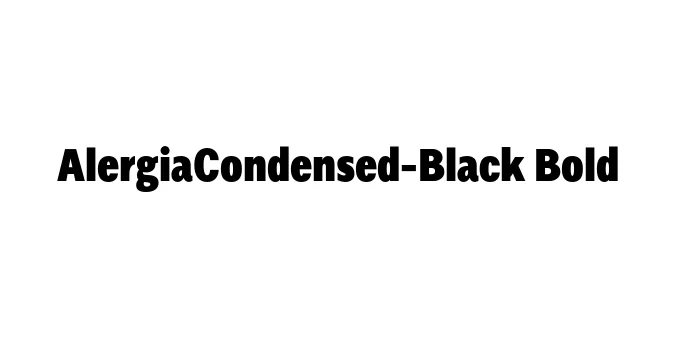
AlergiaCondensed-Black Bold
Designed by Mateusz Machalski
Alergia Condensed Black is a powerful member of the Alergia superfamily, designed by the renowned Polish typographer Mateusz Machalski. This typeface represents a unique hybrid, bridging the gap between rigid geometric construction and the approachable nature of humanist sans-serifs. The Condensed Black variant is specifically engineered for maximum impact, providing a heavy, authoritative presence while maintaining an efficient horizontal footprint, making it a favorite for modern editorial and display work.
The font family was developed to be a versatile workhorse for contemporary designers. Its Black Bold weight features meticulously balanced counters and sharp terminals that ensure clarity even in high-density layouts. Whether used in digital interfaces or large-scale print applications, Alergia Condensed Black stands out for its sophisticated architectural feel and its ability to convey strength without sacrificing elegance. It is a testament to modern type design that prioritizes both functional utility and aesthetic distinction.
AlergiaCondensed-Black Bold Best Uses
Commanding attention in magazine covers and bold news headers.
Creating high-impact visual hierarchies in limited horizontal spaces.
Developing strong, masculine, or architectural brand identities.
Optimizing hero sections and navigation menus for a sleek, modern look.